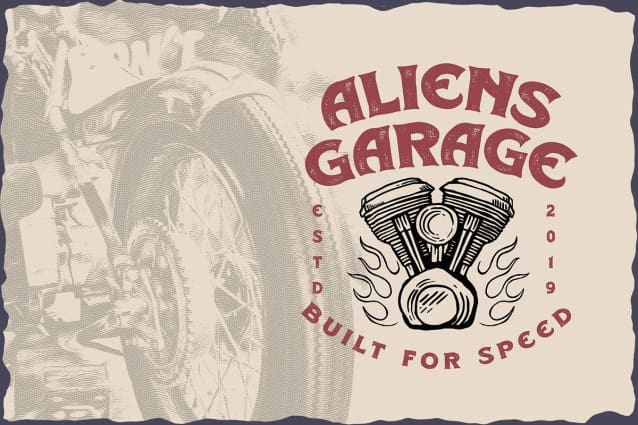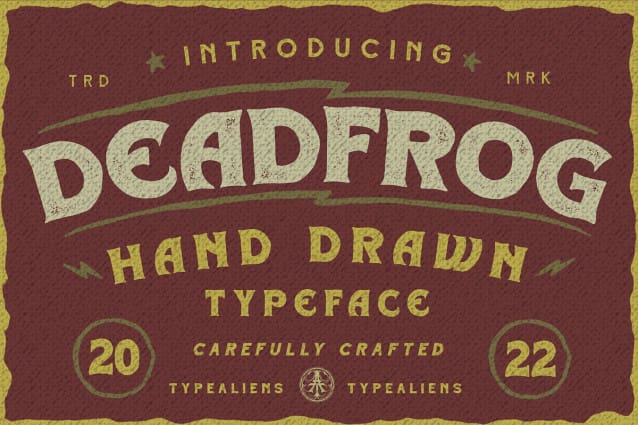
Deadfrog Font
Deadfrog Font is a simple classic font, the base is a super bold serif font that is given a grunge texture effect, resulting in a vintage font, which is suitable for supporting designs related to the world of motorcycle custom. But it can also be used for other designs that require a vintage, bold design style, such as magazine headlines or posters.